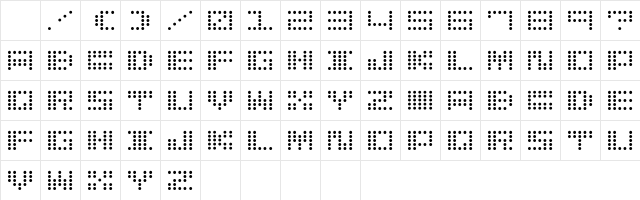
Complete Butsubutsu Regular glyph index. Displaying only characters natively supported by Butsubutsu Regular font.
Butsubutsu is a composed and adaptable typeface that performs quietly and consistently across a wide range of design contexts.